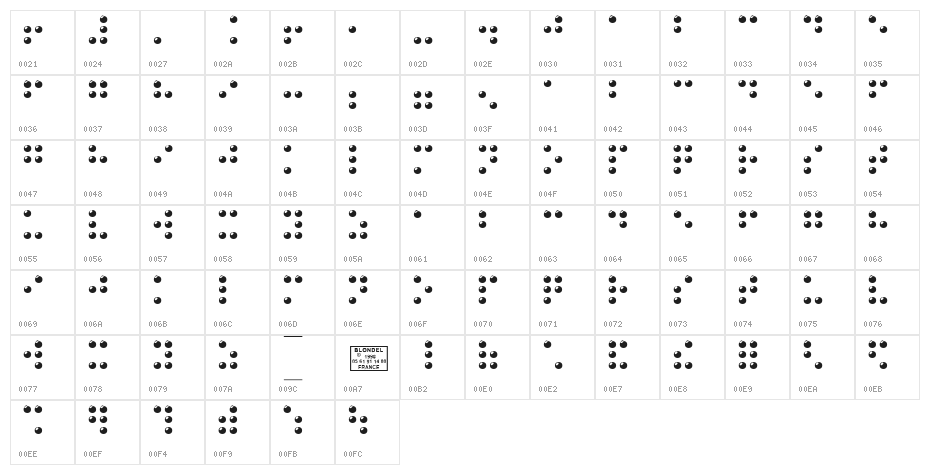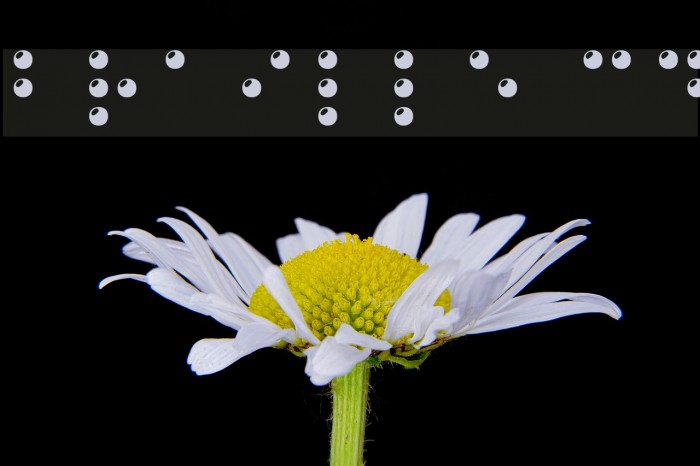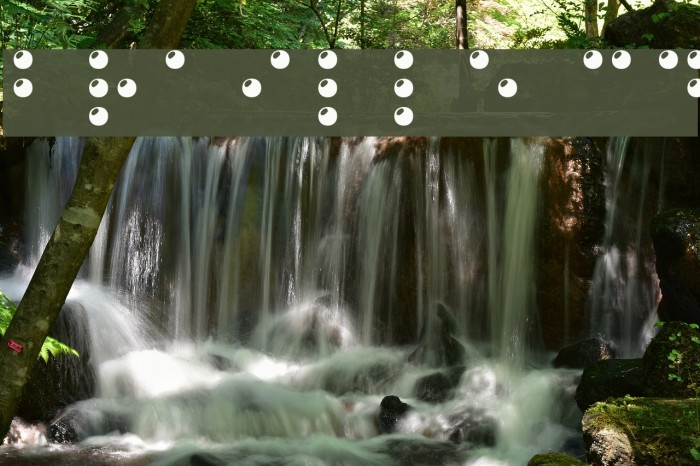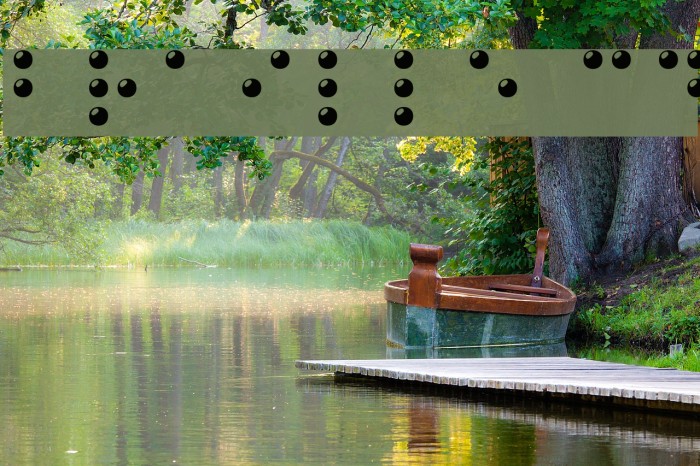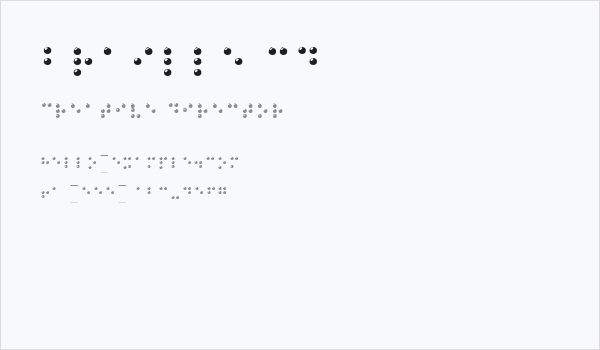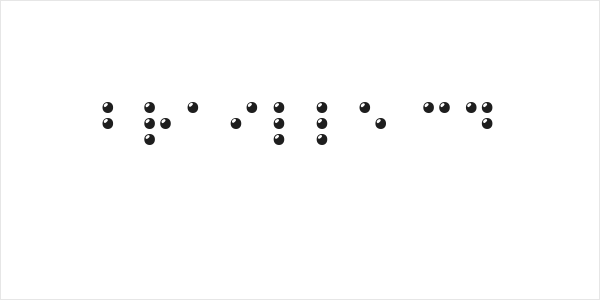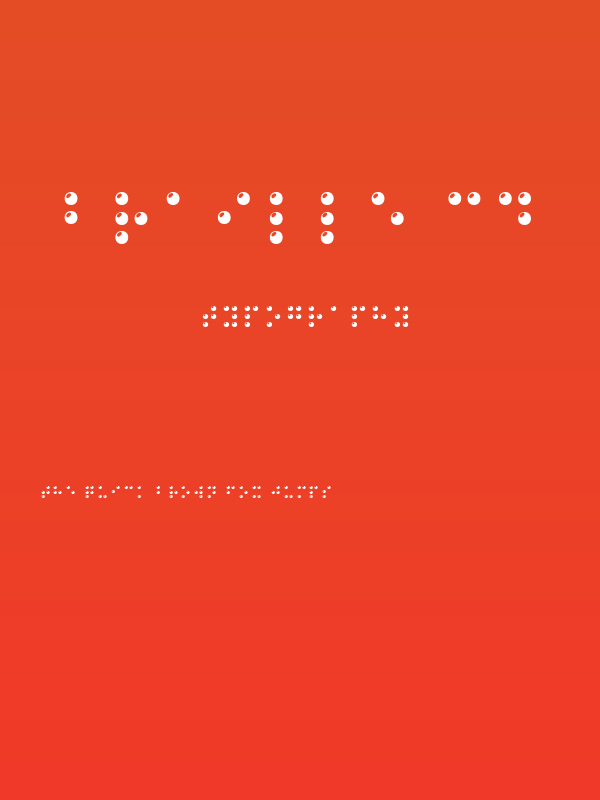
Braille 3D Font
Braille 3D Description
This is a 3D representation of the Braille system, which is a tactile writing system used by people who are visually impaired. Each character is represented by a combination of raised dots arranged in a 2x3 grid. The 3D effect is achieved by rendering the dots as spheres, giving them a realistic, tactile appearance. This design is particularly useful for educational purposes, allowing sighted individuals to better understand and visualize how Braille characters are formed. The spacing between the dots is consistent, ensuring clarity and readability. This representation can be used in digital media to simulate the tactile experience of reading Braille.
| Use Case | Educational materials, Accessibility tools |
| Proposed Projects | This design can be used in educational materials, tactile learning apps, and accessibility awareness campaigns. |